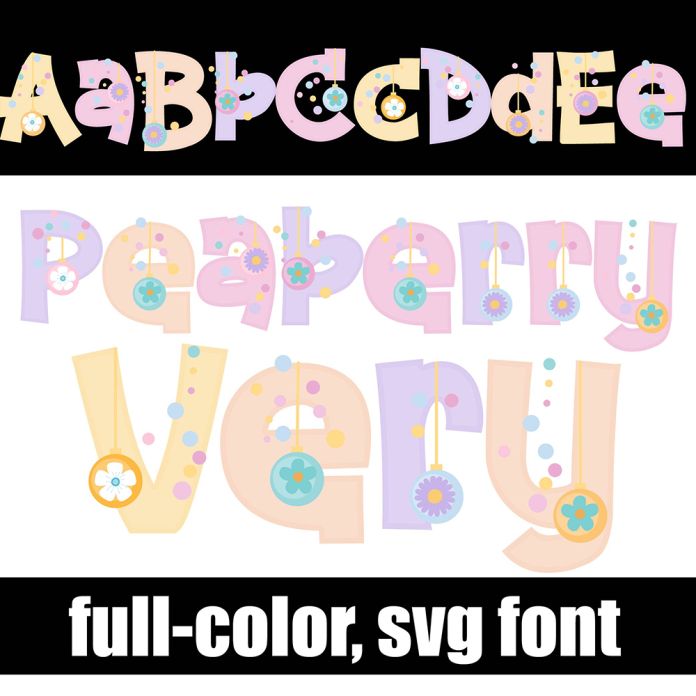
This full-color font features a whimsical sans serif with floral ornaments. There is an alt case with an additional color of each letter. This font works best for titles, displays, posters and more. Please note color fonts will show as black in non compatible programs. This font type is compatible with Silhouette Studio.